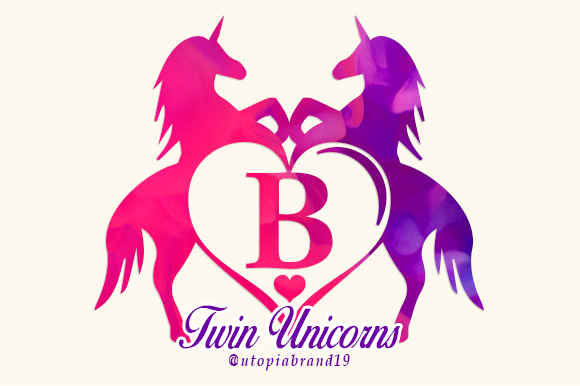
This guide to monogram fonts covers circle/diamond initials, split monograms, interlocking scripts and elegant caps – plus quick rules for 1–3 letter layouts, sizing, and material-friendly settings for vinyl, linens, tumblers, cutting boards and stationery.
Circle Monograms
Classic three-letter circles for towels, tumblers and seals; balanced spacing for FLM/LFM layouts.
Diamond / Square
Sharp geometry for luggage tags and cutting boards; pairs well with outline layers.
Split Monogram Letters
Caps with a built-in name band – perfect for signs and keepsake gifts.
Interlocking Scripts
Intertwined swashes for weddings and boutique packaging; keep strokes bold for small items.
Serif Caps
Elegant capitals for linens and stationery; great with wreath frames.
Vintage / Deco
Art-deco and heritage styles for barware, cigar boxes and heirloom pieces.
Outline & Shadow
Two-layer looks that pop on dark materials; add a small offset for easier weeding.
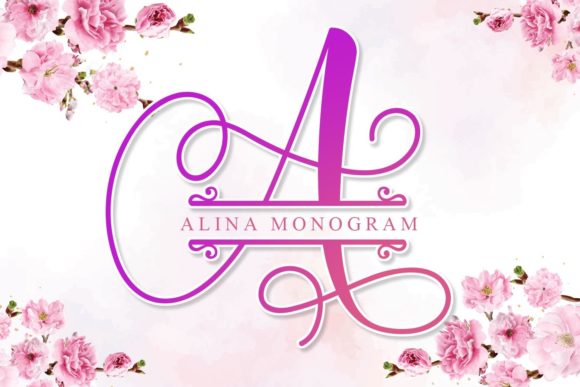
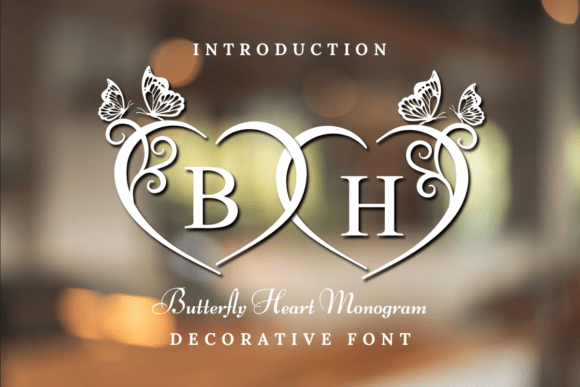
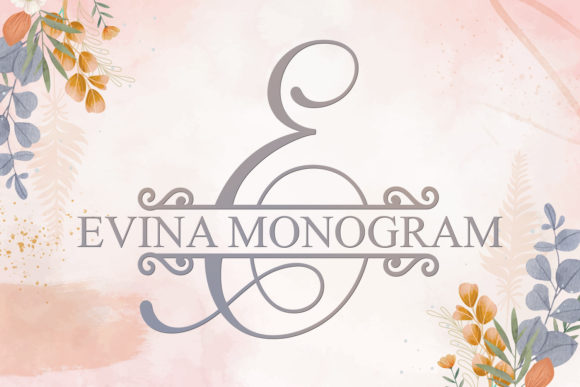
How to choose a monogram font
- Clear strokes at small sizes. Favor sturdy stems and open counters for 1–2 in (25–50 mm) items.
- Letter order. Personal: First–Last–Middle (larger center). Couples: bride–last–groom or shared last name centered.
- Frames & ornaments. Circle/diamond frames and wreaths help alignment and durability on fabric/vinyl.
- Material matters. Vinyl: add 0.05–0.08 in offset. Engraving: monoline or single-line looks.
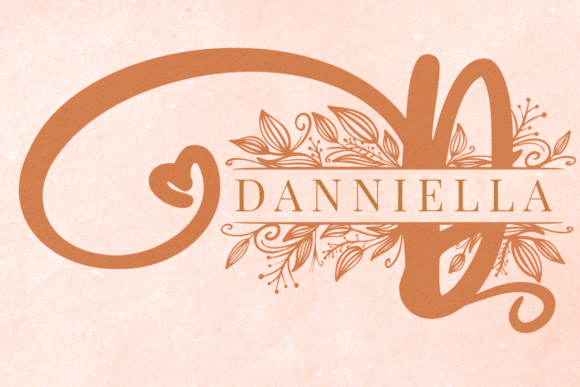
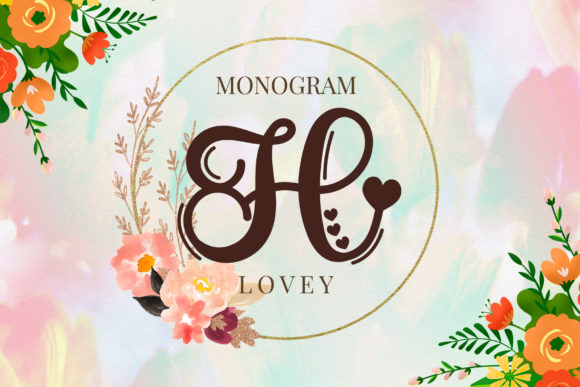
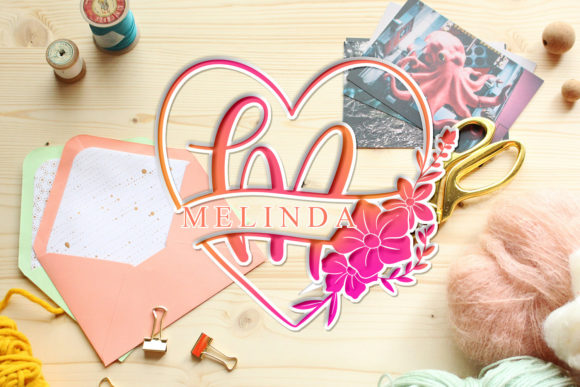
Monogram pairing recipes
- Serif Cap + Wreath – timeless on linens & stationery (foil/emboss mockups look great).
- Interlocking Script + Small Sans – script mark with tiny date/place beneath.
- Circle Monogram + Outline Shadow – high contrast for tumblers & tags.
Projects you can ship today
- Towels & linens: bold caps/circle; HTV per material with firm pressure.
- Tumblers & mugs: circle/diamond + 0.06–0.08 in offset.
- Cutting boards: diamond/serif caps; use monoline/single-line for engraving.
- Stationery & seals: serif caps + wreath; outline layer for wax stamps.
- Holiday ornaments: split monogram with surname band.
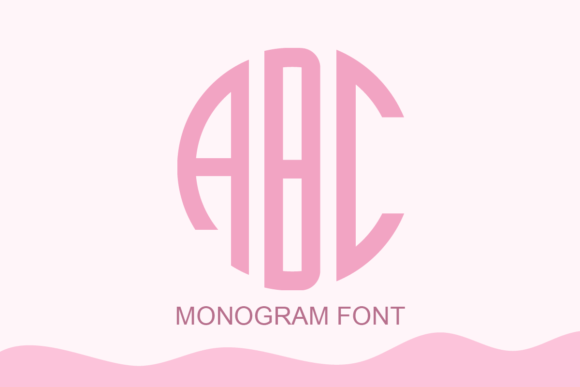
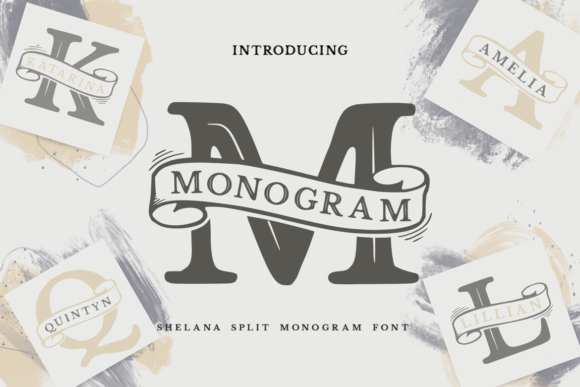
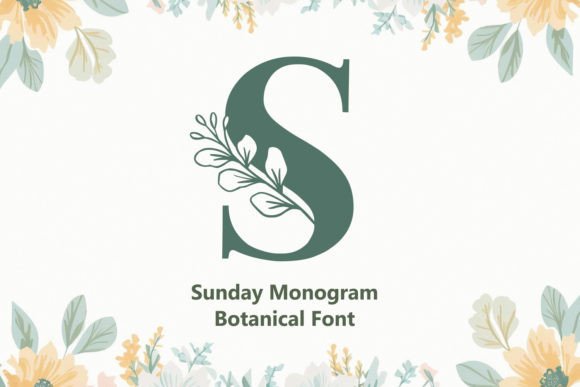
Sizing & layout tips
- Quick sizes: towels 2–3 in; tumblers 1.5–2 in; tags 1–1.5 in.
- HTV/Vinyl: mirror HTV; weed inner counters first; use offsets.
- Engrave/Draw: prefer single-line; avoid hairline serifs below 1 in.
- Kerning: tighten AV/TA/TO; overlap interlocks slightly, then weld/union.
- Engraving behavior: outline fonts engrave both edges; single-line draws one center stroke.
Correct order for three-letter monograms?
Personal: First–Last–Middle (center larger). Couples: bride–last–groom or shared last centered.
Best size for towels?
Usually 2–3 in depending on fabric and font weight; keep counters open.
Can I engrave any font?
Single-line/monoline works best. Outline fonts engrave both edges unless converted.